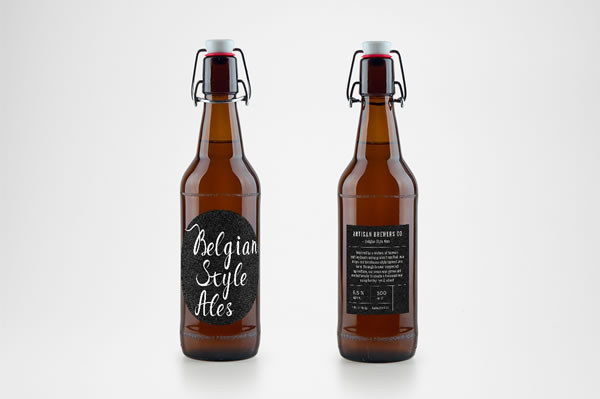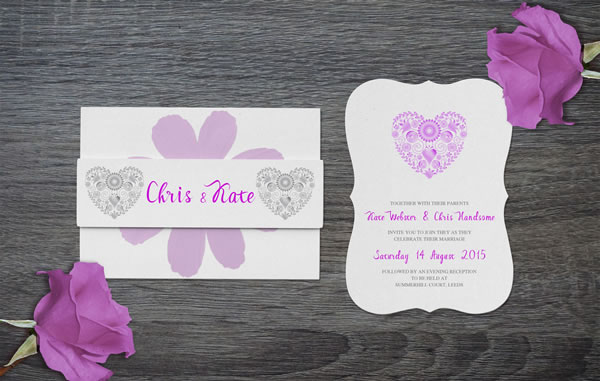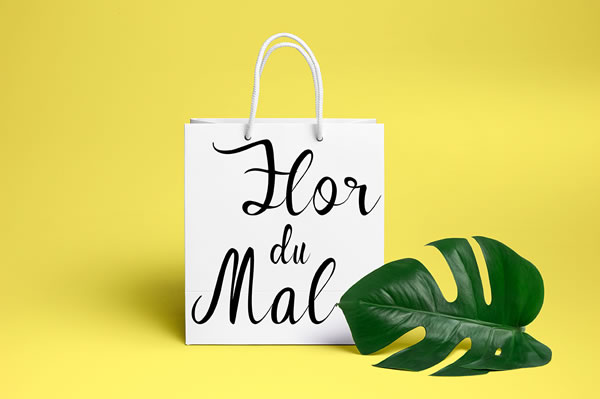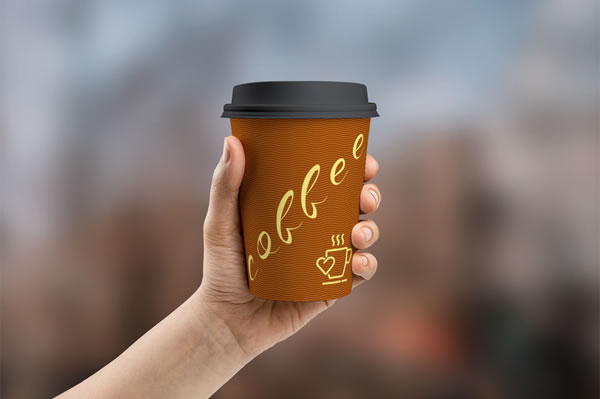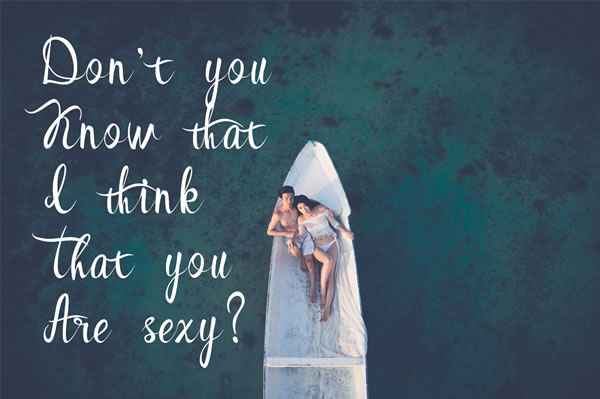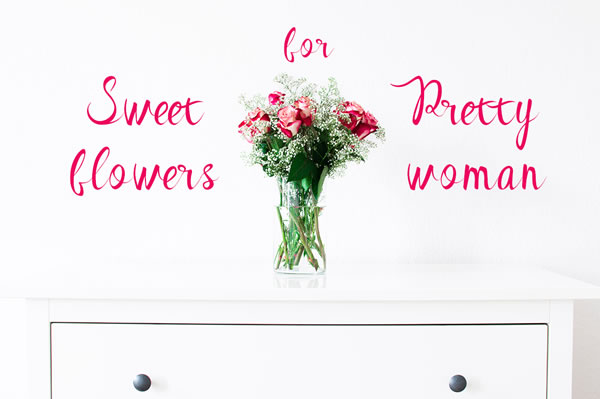
Introducing Absinth Font: A Hand-Painted Masterpiece Inspired by Van Gogh
Are you a designer, crafty enthusiast, or simply a fan of Vincent van Gogh’s artwork? Look no further! We’re excited to introduce Absinth Font, a stunning hand-painted handwritten font that draws inspiration from the legendary artist’s paintings and letters to his brother. This unique font is sure to add a touch of elegance and whimsy to your creative projects.
The Story Behind Absinth Font
Vincent van Gogh, a post-impressionist master, was known for his bold and expressive brushstrokes, vivid colors, and emotive letters to his brother Theo. Absinth Font captures the essence of his artistic style, translating it into a beautiful, hand-painted font. Each letter, carefully crafted by hand, reflects the intricate details and textures found in Van Gogh’s artwork.
Characteristics of Absinth Font
Absinth Font boasts a range of distinctive features that make it a standout addition to any design collection:
- Hand-painted charm: Each letter is meticulously hand-painted, giving the font a unique, organic feel.
- Van Gogh inspiration: The font’s style is directly inspired by Van Gogh’s paintings and letters, making it perfect for projects that require a touch of artistic flair.
- Whimsical and elegant: Absinth Font strikes a perfect balance between playfulness and sophistication, making it suitable for a wide range of design applications.
- High-quality design: The font is carefully crafted to ensure excellent readability and versatility.
Uses for Absinth Font
With its distinctive style and versatility, Absinth Font can be used in various creative projects, including:
- Graphic design: Add a touch of artistic elegance to your branding, logos, and marketing materials.
- Stationery and invitations: Create beautiful, one-of-a-kind stationery, invitations, and greeting cards.
- Digital art and illustrations: Use Absinth Font to add text to your digital artwork, illustrations, and mixed media projects.
- Crafting and DIY projects: Perfect for crafty enthusiasts, the font can be used for journaling, scrapbooking, and other paper crafts.
Tips for Using Absinth Font
To get the most out of Absinth Font, consider the following tips:
- Experiment with colors: Van Gogh was known for his bold color choices, so don’t be afraid to try out different hues and combinations.
- Mix and match: Combine Absinth Font with other fonts or design elements to create unique and visually appealing compositions.
- Pay attention to spacing: As a hand-painted font, Absinth Font may require adjustments to spacing and kerning to achieve optimal results.
Absinth Font is a true masterpiece, inspired by the artistic genius of Vincent van Gogh. With its hand-painted charm, whimsical elegance, and versatility, this font is sure to delight designers, crafty enthusiasts, and fans of Van Gogh’s artwork. Whether you’re looking to add a touch of artistic flair to your designs or simply want to pay homage to the master, Absinth Font is an excellent choice. So why wait? Download Absinth Font today and unleash your creativity!